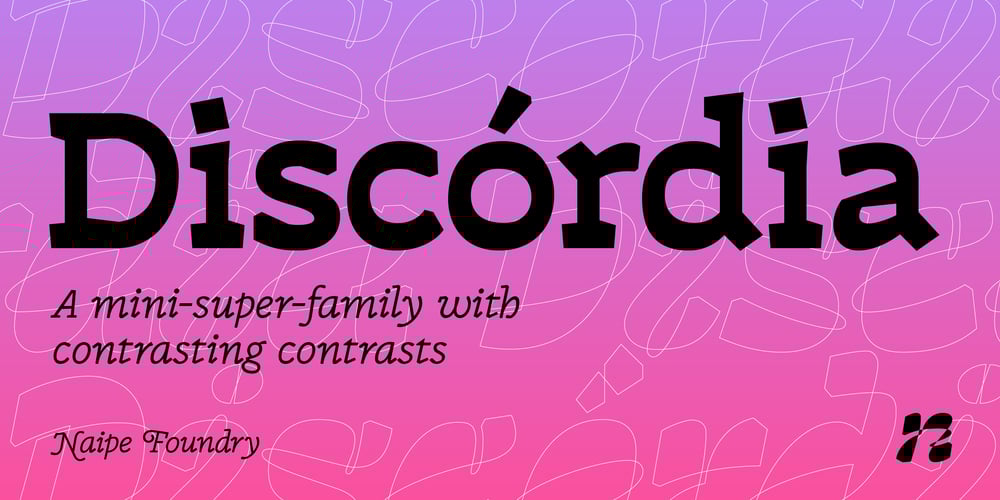
Discordia Font Family was designed by Felipe Casaprima, Álvaro Franca and published by Naipe Foundry. Discordia contains 4 styles and family package options. Discórdia is a type-family of contrasting contrasts. Each of the four members of the family has a different contrast type. Regular has broad-nib contrast, Bold has horizontal contrast, the Italic is monoline, which means it has no apparent contrast, and Bold Italic is… Well, it’s probably best if see for yourself.These different design structures were fine-tuned to work well together in the same line, creating emphasis and hierarchy through a mini-super-family that groups a wedge-serif Regular, a slab-serif Bold, a sans-serif-ish Italic and a twisted Bold Italic.Naipe teamed up with Ben Nathan of Hafontia to extend Discórdia and give full Hebrew Support. Coming soon!